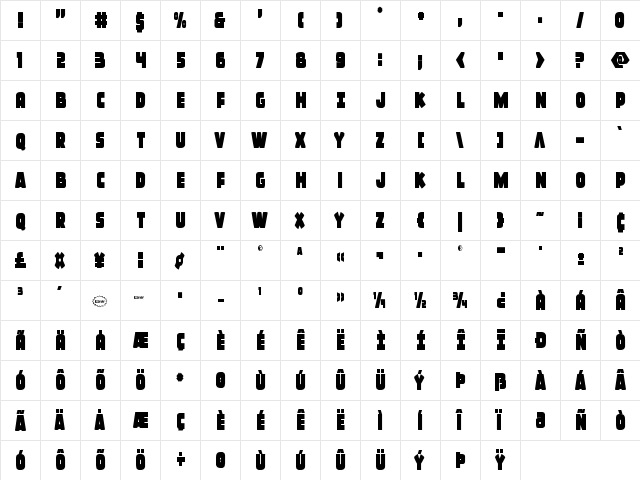
Frost Giant Condensed Condensed
Design Context for Frost Giant Condensed Typeface
Frost Giant Condensed is a composed and adaptable typeface that performs quietly and consistently across a wide range of design contexts. The condensed width makes it efficient for tight spaces without sacrificing legibility.